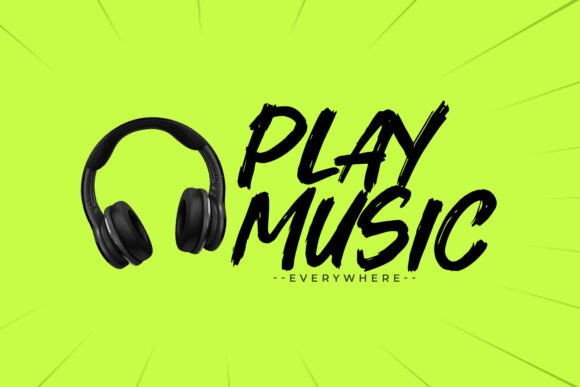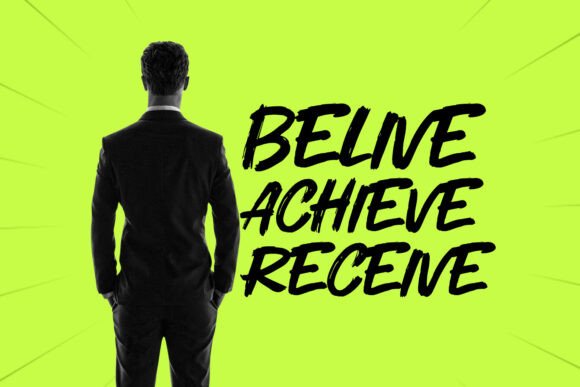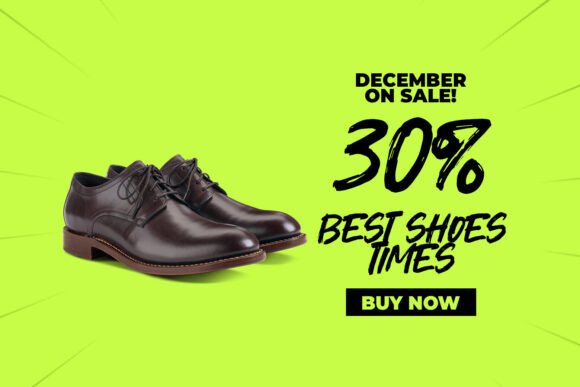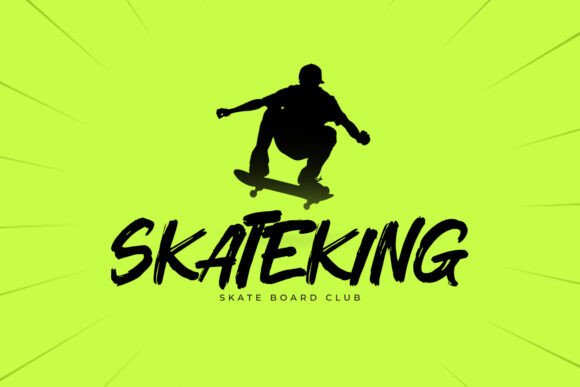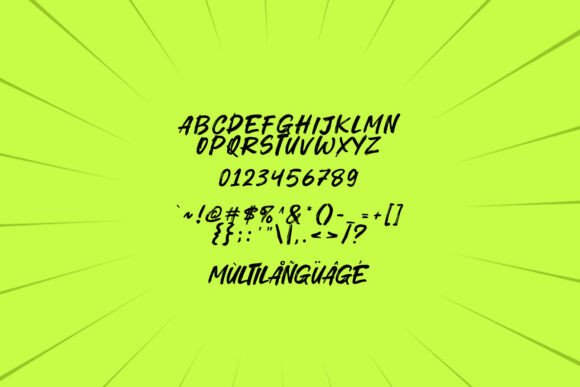
Introducing Energy Station Font: The Perfect Modern Brush Font for Your Creative Projects
Are you a designer or crafter looking for a unique and quirky font to add a personal touch to your creative projects? Look no further than Energy Station Font, a modern brush font that is perfect for a wide range of applications, from posters and logos to magazines, book covers, and banners.
A Versatile Font for Endless Creative Possibilities
Energy Station Font is a highly versatile font that can easily be matched to an incredibly large set of projects. Whether you’re looking to create a bold and eye-catching poster, a stylish logo, or a beautiful book cover, this font is sure to make your designs stand out. Its modern brush style gives it a fresh and edgy look that’s perfect for designers and crafters who want to add a bit of personality to their work.
Key Features of Energy Station Font
- Modern Brush Style: Energy Station Font features a unique modern brush style that’s perfect for creating bold and eye-catching designs.
- Quirky Display Font: This font is designed to be used as a display font, making it perfect for headlines, titles, and other attention-grabbing elements.
- Highly Versatile: Energy Station Font can be used for a wide range of projects, from posters and logos to magazines, book covers, and banners.
- Easily Customizable: This font is easy to customize, allowing you to adjust the size, color, and style to fit your specific design needs.
Why Choose Energy Station Font?
So why choose Energy Station Font for your creative projects? Here are just a few reasons:
- Unique and Eye-Catching: This font is sure to grab attention and make your designs stand out from the crowd.
- High-Quality Design: This font is designed to high standards, ensuring that it looks great in any design.
- Perfect for a Wide Range of Projects: Whether you’re working on a poster, logo, magazine, book cover, or banner, Energy Station Font is the perfect choice.
- Use it for Headlines and Titles: This font is perfect for headlines and titles, so use it to add a bold and eye-catching element to your designs.
- Use it to Add Personality to Your Designs: This font is all about adding personality to your designs, so use it to make your work stand out from the crowd.